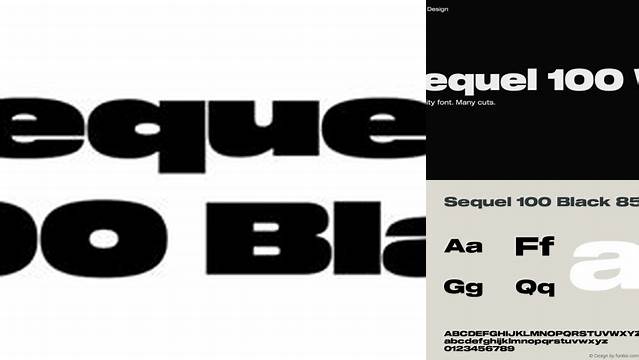
Let's dive into the world of fonts, specifically focusing on how to get your hands on the Sequel 100 Black 85 font for free. Whether you're a designer, a student, or just someone who loves playing around with typography, finding the right font can make all the difference. So, let's break down what this font is all about and where you can snag it without spending a dime. We'll cover everything from its characteristics to legal considerations. By the end, you'll be well-equipped to use this font in your projects.
Understanding the Sequel 100 Black 85 Font
Before we jump into the download process, it's crucial to understand what makes the Sequel 100 Black 85 font unique. This font typically features a bold, impactful design, making it ideal for headlines, posters, and branding materials. Its strong visual presence can instantly grab attention, ensuring your message is clearly conveyed. Knowing its specific characteristics will help you determine if it's the right fit for your project.
The Sequel 100 Black 85 font usually boasts thick strokes and a solid, sturdy appearance. This makes it highly legible, even at larger sizes. Its design often includes a modern touch, blending classic typography with contemporary aesthetics. The font's versatility allows it to be used in various contexts, from digital designs to print media. Always consider the font's overall style and how it aligns with your project's goals. Think about the message you want to convey – does the font match the tone and feel you're aiming for? Moreover, understanding the technical aspects, such as its weight and character set, is essential for seamless integration into your design workflow. Familiarize yourself with its licensing terms to avoid any legal issues down the road.
What is Sequel Font?
So, what exactly is Sequel font, anyway? Well, the term "Sequel" in font names often refers to a series or family of fonts designed to complement each other. Think of it like a movie franchise; each font in the series shares a similar aesthetic but offers different weights, styles, or variations. This allows designers to maintain a consistent look and feel across various projects while adding subtle differences for emphasis or visual interest. The Sequel font family might include light, regular, bold, and italic versions, giving you a wide range of options to play with.
When you hear about Sequel font, you should immediately think about versatility and cohesion. Designers love these font families because they make it easier to create a unified brand identity. Imagine you're designing a website – you might use the light version for body text, the regular version for subheadings, and the bold version for main headlines. All these elements work together harmoniously because they belong to the same family. This consistency helps create a professional and polished look. Additionally, using a Sequel font family can save you time and effort in the long run. Instead of searching for multiple fonts that complement each other, you have a ready-made solution that offers a variety of styles within a single package. This streamlines your design process and ensures a cohesive visual outcome.
Characteristics of Black 85 Weight
The "Black 85" weight designation tells us a lot about the font's appearance. In typography, weight refers to the thickness of the font's strokes. A "Black" weight generally indicates a very heavy, bold appearance. The "85" is a numerical value that further specifies the degree of boldness. Think of it as a scale where higher numbers represent thicker strokes. Therefore, Black 85 signifies a font with substantial weight, making it perfect for grabbing attention and creating a strong visual impact.
Fonts with a Black 85 weight are typically used in headlines, posters, and other display applications where legibility and impact are paramount. The thick strokes ensure that the text stands out, even from a distance. This weight is also ideal for branding materials, such as logos and marketing collateral, where you want to make a bold statement. However, it's essential to use Black 85 sparingly. Overusing such a heavy weight can make your design look cluttered and overwhelming. Instead, use it strategically to highlight key elements and create visual hierarchy. When pairing Black 85 with other fonts, opt for lighter weights and simpler styles to create a balanced and harmonious design. Remember, the goal is to create a visually appealing composition that effectively communicates your message without being too aggressive.